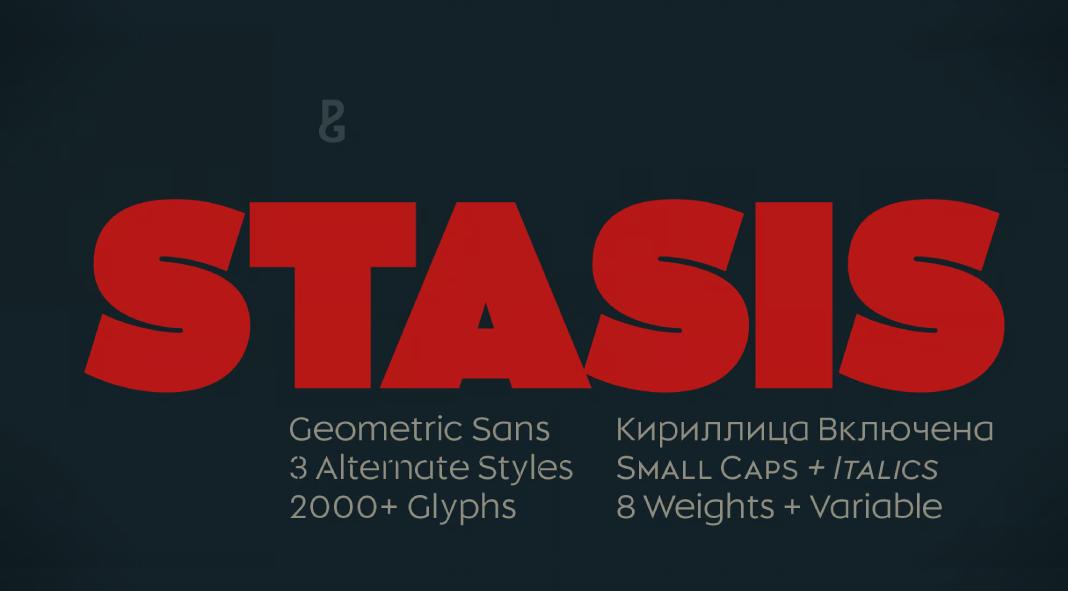
Discovering Stasis: The Versatile Geometric Typeface by Paulo Goode
Typography aficionados and design professionals, gather around as we delve into the captivating world of Stasis, a geometric sans-serif typeface designed by Paulo Goode. This typeface is not just another addition to your font collection; it is a multi-faceted gem that promises to elevate your design projects with its unique features and versatility.
Stasis is a typeface that exudes charm and functionality. It is built on the simplicity of geometric shapes, yet it carries subtle humanistic nuances that soften its overall appearance. This combination of geometric precision and human touch makes Stasis a friendly and approachable font family.
Stasis font family by Paulo Goode
The Allure of Four Fonts in One
What sets Stasis apart is its inherent flexibility. By incorporating Stasis into your design toolkit, you are essentially gaining access to “four fonts in one.” This typeface family is a delight for branding designers, as it is meticulously crafted to handle logotypes, headlines, and titles with aplomb. While Stasis is charismatic and impactful in its standard form, it truly shines when its stylistic sets are activated.
Unveiling the Stylistic Sets
Stasis offers three distinct stylistic sets that provide a range of visual expressions, allowing designers to create impressive headlines, masterful logos, and striking book and film titles effortlessly.
• Stylistic Set 1: Stencil – This set features a straightforward stencil style with carefully chosen cuts across each character, adding an industrial yet refined edge to your design.
• Stylistic Set 2: Slice – Emulating the concept of a slice, this set introduces a dynamic feel to the typeface by incorporating a slice taken out of each glyph. This unique characteristic brings a fresh and modern look to any project.
• Stylistic Set 3: Notch – The Notch set offers a slight incision in the body of the characters, creating the illusion of a third dimension. This well-crafted notched style infuses a sense of movement and depth into the typeface.
Comprehensive Font Family
The Stasis typeface family comprises 16 fonts, ranging from Light to Ultra in both Roman and Italic versions. Additionally, it offers the flexibility of unicase typography, where small caps harmonize seamlessly with lowercase letters. This extensive range ensures that Stasis can adapt to a variety of design needs, from subtle and understated to bold and attention-grabbing.
Stasis is designed to support a wide array of languages, covering Latin-based European languages and Cyrillic scripts. This broad linguistic coverage makes Stasis a versatile choice for global brands and multilingual projects.
The Variable Font Advantage
For those who seek even greater flexibility, Stasis offers a variable font (available separately). This single variable font encompasses all weights and italic angles, with every increment in between. This feature allows designers to fine-tune their typography to match their precise stylistic preferences, providing unparalleled control over the final output.
In summary, Stasis by Paulo Goode is a captivating geometric sans-serif typeface that offers a unique blend of simplicity and humanistic charm. Its versatility, driven by its three stylistic sets and extensive font family, makes it an invaluable asset for designers. Whether you’re crafting logos, headlines, or titles, Stasis is poised to deliver outstanding results with its multifaceted design and comprehensive language support. Embrace the flexibility and creativity that Stasis brings to your projects and watch your designs come to life with elegance and impact.